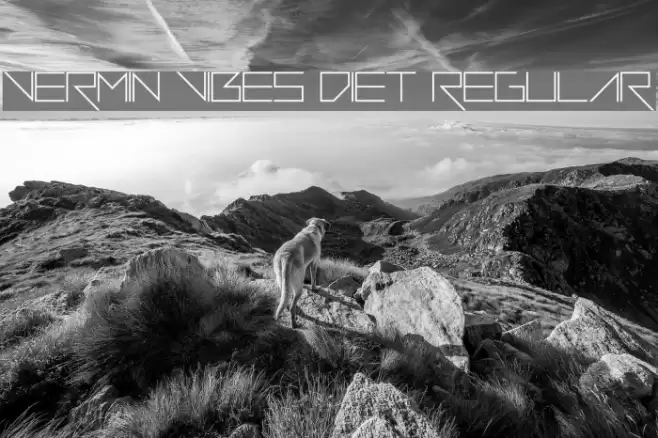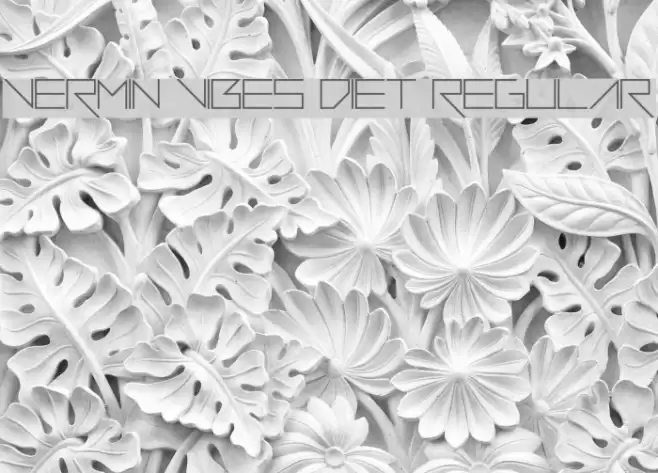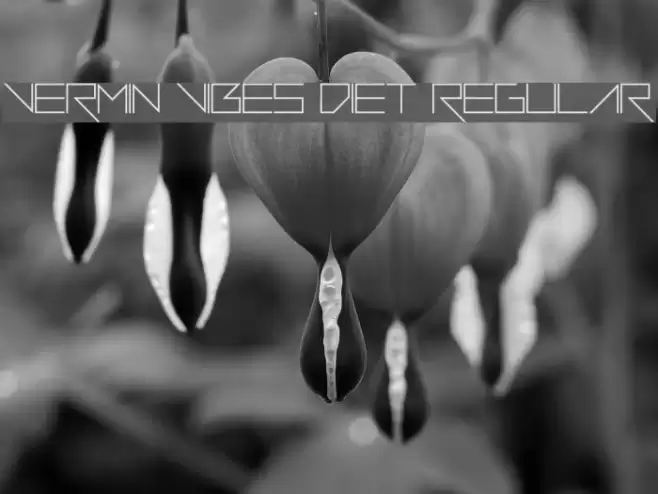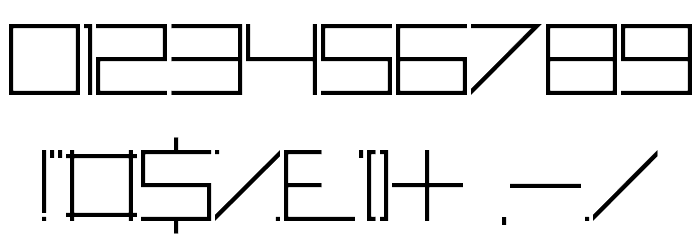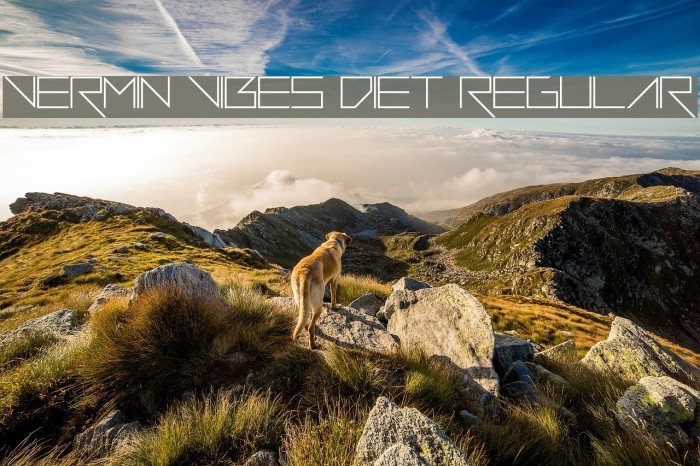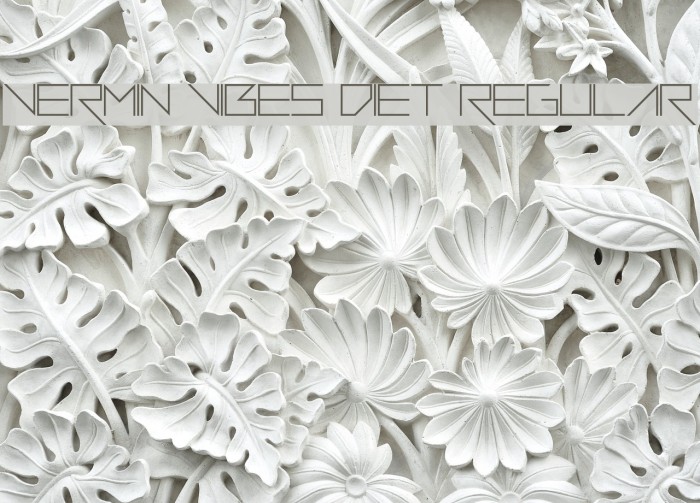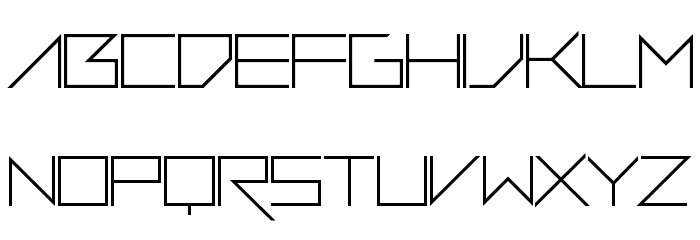
Vermin Vibes Diet Regular Font
Vermin Vibes Diet Regular Description
This font features a highly geometric and angular design, characterized by its sharp edges and linear forms. Each letter is constructed with a series of straight lines, creating a futuristic and technical appearance. The uppercase and lowercase letters maintain a consistent style, with the lowercase being a smaller version of the uppercase. Numbers and special characters follow the same angular theme, ensuring uniformity across the typeface. The font's unique structure makes it stand out, offering a modern and edgy aesthetic that is both distinctive and memorable.
A geometric, angular font with a futuristic and technical design from Uncategorized fonts.
- Proposed Projects: Ideal for technology branding, sci-fi themed projects, video game titles, and modern poster designs.